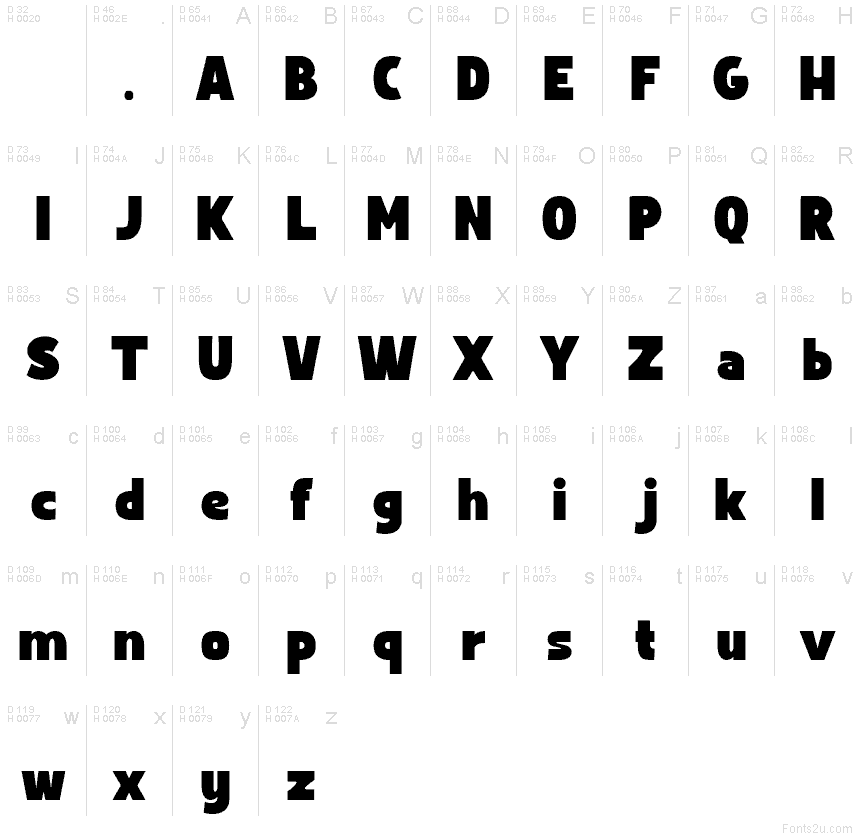
Bardy Regular
Bardy font is a modern bold sans serif typeface created by Achmad Yani at Flawless and co. This rounded geometric design brings contemporary and minimalistic vibes wherever used in paragraphs, titles, or small texts. Its clean lines and recognizable styles can be spotted from far away on urban signs to medium-distance printed mediums like magazines.